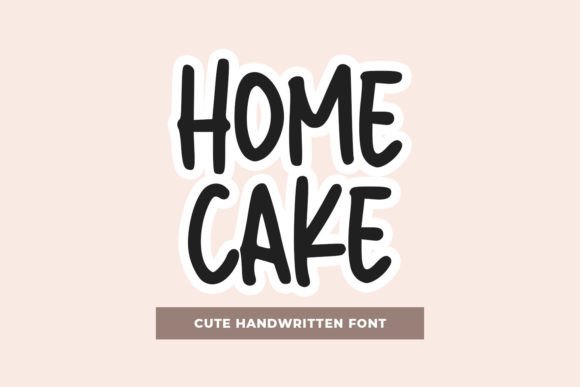
Introducing Homecake Font: The Sweet and Friendly Handwritten Font
Are you looking for a font that can add a touch of warmth and personality to your designs? Look no further than Homecake Font, a sweet and friendly handwritten font that is sure to capture the hearts of your audience. With its natural and unique style, Homecake Font is incredibly versatile and can be used in a wide range of designs, from branding and advertising to packaging and digital media.
The Story Behind Homecake Font
Homecake Font is a carefully crafted handwritten font that is designed to evoke a sense of warmth and friendliness. Its creator, [font designer name], drew inspiration from traditional handwritten scripts and infused them with a modern twist to create a truly unique and eye-catching font.
The design process involved countless hours of research, experimentation, and refinement to ensure that Homecake Font would be both aesthetically pleasing and highly legible. The result is a font that is not only beautiful but also highly functional and versatile.
Key Features of Homecake Font
- Handwritten style: Homecake Font boasts a natural, handwritten style that is perfect for creating a personal and approachable feel in your designs.
- Unique character set: The font features a unique character set that includes a wide range of letters, numbers, and punctuation marks.
- High legibility: Despite its handwritten nature, Homecake Font is highly legible, even at small sizes.
- Multilingual support: The font supports multiple languages, making it a great choice for global brands and businesses.
What Makes Homecake Font So Versatile?
So, what makes Homecake Font so versatile? The answer lies in its unique design, which blends traditional handwritten elements with modern sensibilities. Here are just a few examples of how Homecake Font can be used:
- Branding and advertising: Use Homecake Font to create eye-catching logos, taglines, and ad copy that resonates with your target audience.
- Packaging design: Add a personal touch to your product packaging with Homecake Font, which is perfect for labels, product descriptions, and more.
- Digital media: Use Homecake Font in your digital media, such as social media graphics, blog posts, and email newsletters, to add a touch of warmth and personality.
The Benefits of Using Homecake Font
By using Homecake Font in your designs, you can enjoy a range of benefits, including:
- Increased engagement: Homecake Font’s friendly and approachable style can help increase engagement and build a stronger connection with your audience.
- Improved brand identity: Use Homecake Font to create a consistent brand identity that reflects your values and personality.
- Enhanced creativity: With its unique character set and versatile design, Homecake Font can inspire creativity and help you think outside the box.
How to Use Homecake Font Effectively
To get the most out of Homecake Font, here are a few tips to keep in mind:
- Use it consistently: Use Homecake Font consistently across all your designs to create a strong brand identity.
- Experiment with different sizes and colors: Don’t be afraid to experiment with different sizes and colors to add visual interest and hierarchy to your designs.
- Pair it with other fonts: Homecake Font pairs well with other fonts, so don’t be afraid to combine it with other typefaces to create a unique look.
In conclusion, Homecake Font is a sweet and friendly handwritten font that is perfect for designers looking to add a touch of warmth and personality to their designs. With its natural and unique style, Homecake Font is incredibly versatile and can be used in a wide range of designs, from branding and advertising to packaging and digital media.